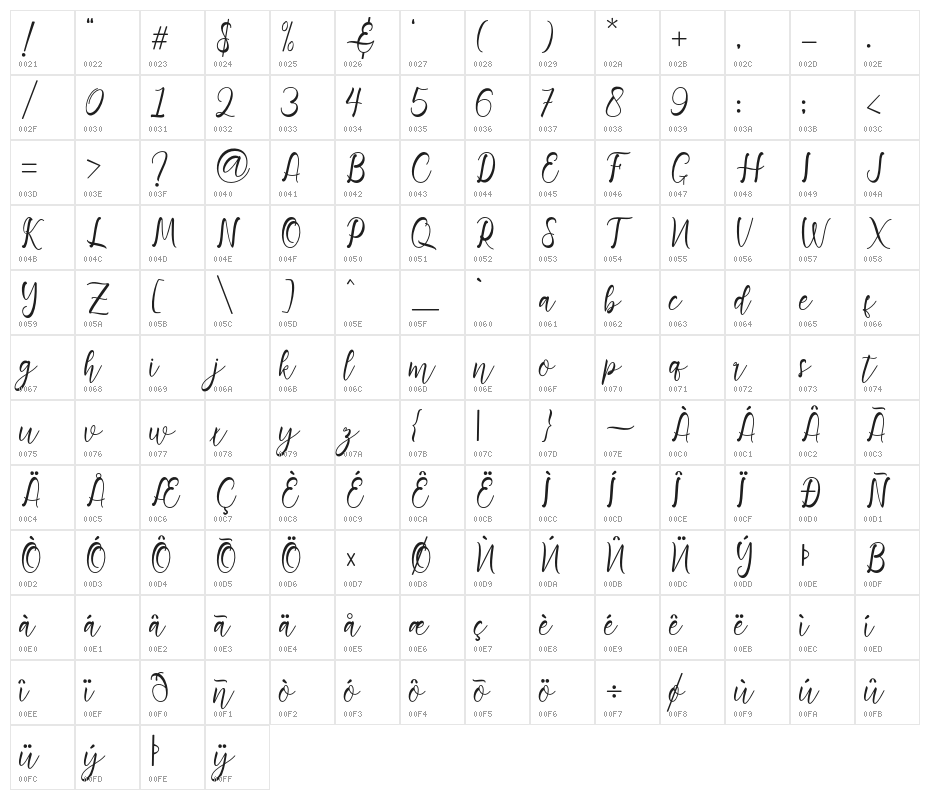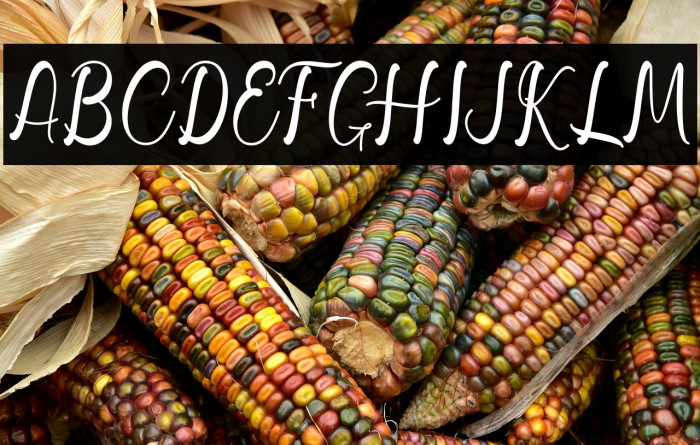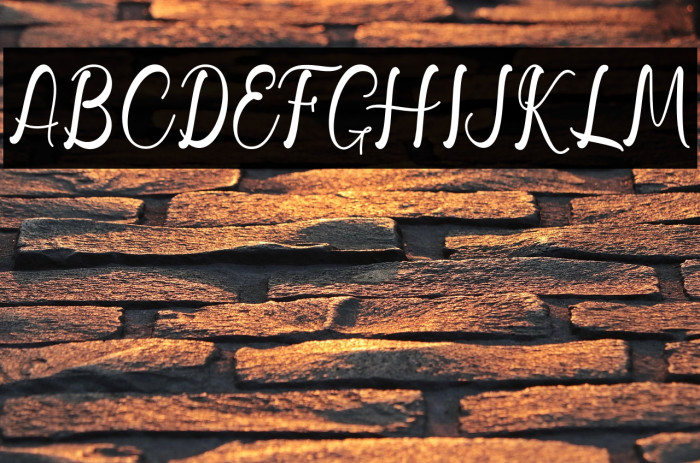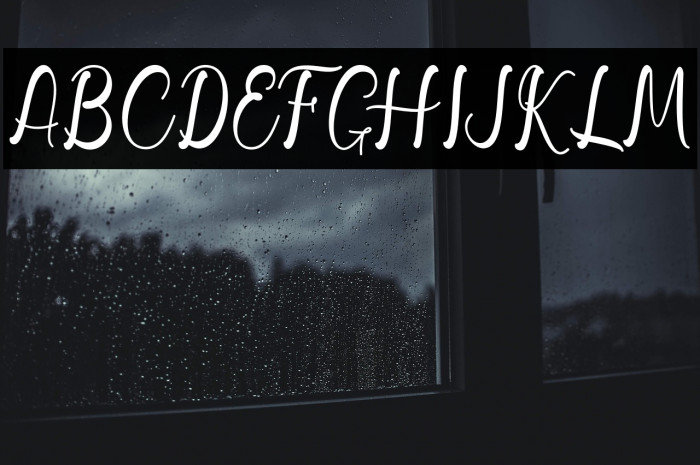
Adiescode Font
Adiescode Description
This font features an elegant and flowing script style with a handwritten appearance. The uppercase letters are bold and slightly slanted, giving a sense of movement and grace. The lowercase letters maintain a consistent flow, with smooth curves and loops that enhance its cursive nature. Numbers are designed with a similar flair, maintaining readability while adding a touch of sophistication. Special characters are integrated seamlessly, ensuring versatility in various contexts. The overall design is both stylish and legible, making it suitable for a range of creative applications.
| Overall Style | Elegant, Handwritten |
| Use Case | Logos, Invitations, Greeting Cards |
| Proposed Projects | Ideal for wedding invitations, greeting cards, branding, and elegant logos. |